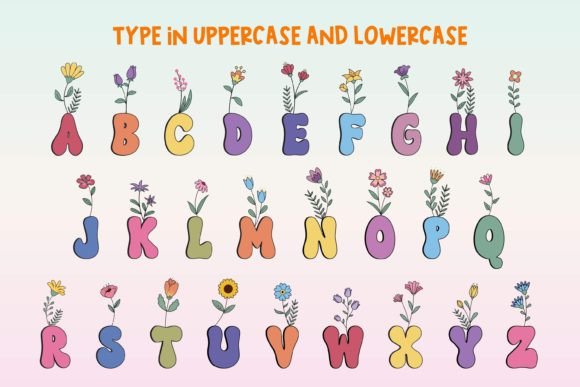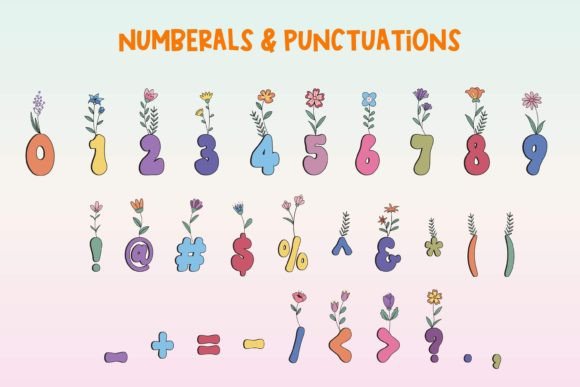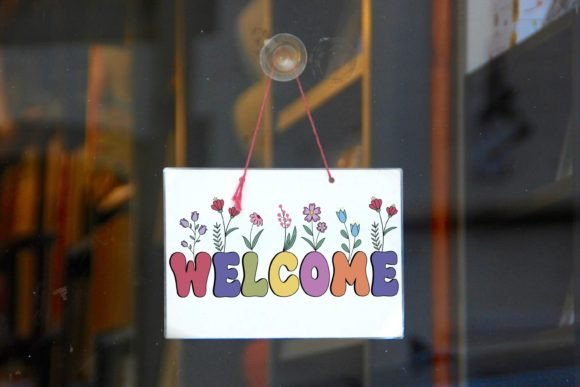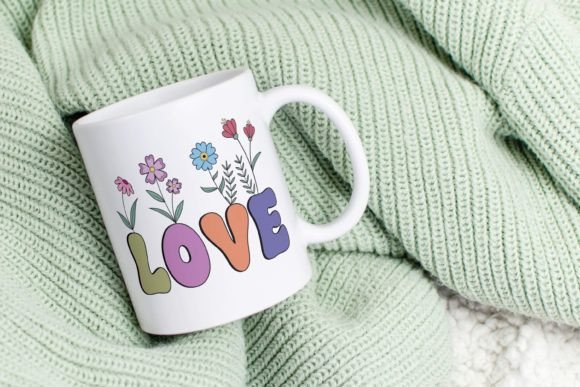
Introduction to Flower on Top Font
Introducing Flower On Top, a vivid and playful color font that brings a touch of enchantment to cute design.
Its captivating character effortlessly melds with t-shirt designs, digital imprints, craft creations, decorative cards, and extensive projects Flower On Top arrives in three variations: OTF, TTF, and WOFF color font, ensuring complete convenience and flexibility.